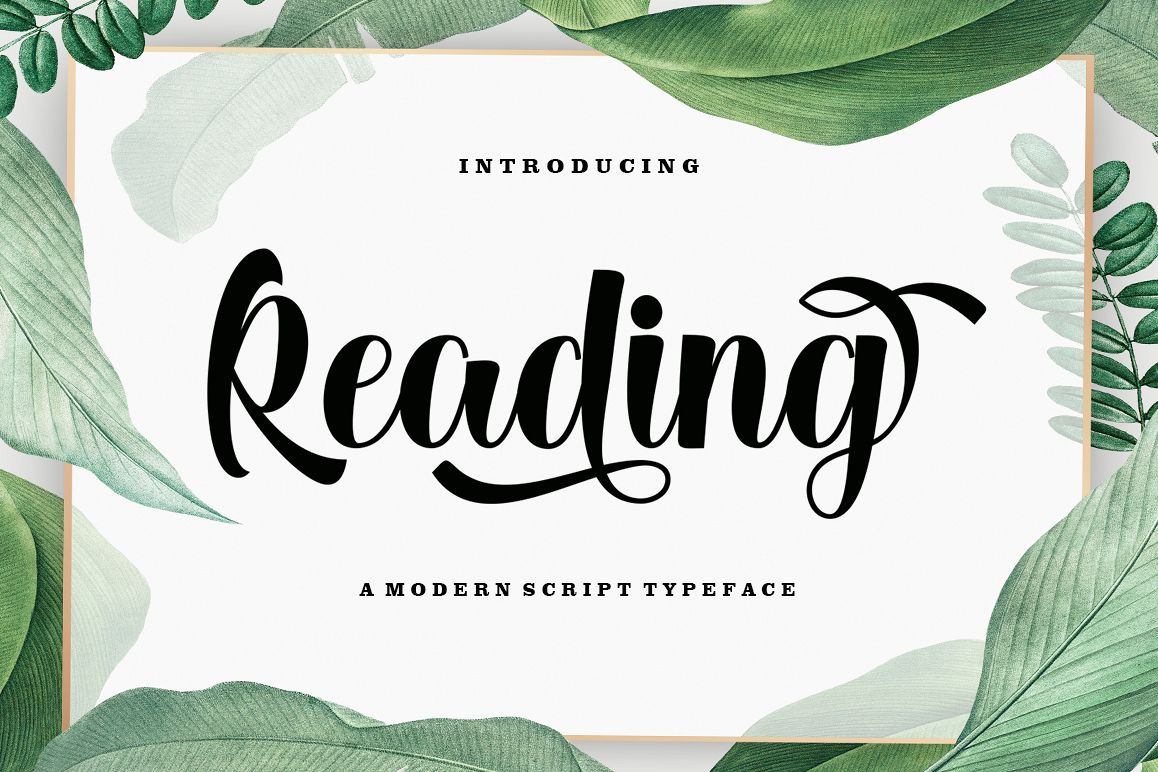
Reading Font
Reading Font is perfect for book publishing, academic journals, educational textbooks, research publications, library signage, literary magazines, scholarly articles, e-book platforms, reading comprehension materials, and extensive digital content.
What makes Reading Font so exciting is its scientifically optimized design that enhances reading comprehension and reduces eye fatigue through meticulously crafted letterforms specifically engineered for extended reading sessions. This specialized typeface represents the pinnacle of reader-focused typography, featuring characters that seem to guide the eye naturally through text while maintaining perfect clarity and visual comfort across thousands of words. The font's ergonomic design elements perfectly balance readability science with aesthetic appeal, creating an indispensable tool that communicates scholarly authority, accessibility, and genuine care for reader experience, making it essential for any publication that values reader engagement and comprehension.
Reading Font comes in multiple font families including Regular, Bold, Light, Italic, Bold Italic, Book, Medium, and Comfort variations. Each family member maintains the core readability characteristics while offering different text hierarchy levels and stylistic approaches to suit various editorial design requirements.
The Reading Font Free Download provides publishers, educators, and content creators with an extraordinary resource for producing materials that prioritize optimal reading experiences and information retention. This remarkable typeface distinguishes itself through its unique ability to communicate themes of educational excellence, scholarly credibility, and reader-centered design. Whether you're developing academic publications, creating comprehensive educational materials, or designing extensive digital reading platforms, this font ensures your content maintains maximum readability and professional presentation throughout extended reading experiences.
The scientific letter spacing in Reading Font makes it particularly effective for educational institutions and publishing houses where reader comfort and learning effectiveness are paramount for successful knowledge transfer. Its carefully calibrated proportions reduce reading strain while maintaining the professional dignity that appeals to serious readers and academic communities seeking authoritative information sources.
Educational publishing professionals recognize how Reading Font transforms complex informational content into accessible, engaging publications that encourage sustained reading and improved comprehension. The typeface's comprehensive character set includes extensive punctuation support, academic symbols, and international language features that accommodate sophisticated editorial requirements and multilingual educational publishing needs.
For creative professionals serving academic publishers, educational technology companies, and content-rich digital platforms, Reading Font serves as the ultimate foundation for creating memorable reading experiences that capture the essential qualities of scholarly excellence, reader accessibility, and educational effectiveness that define successful publications in competitive knowledge markets.